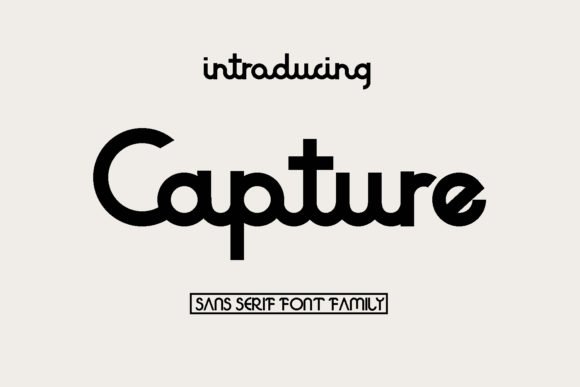
Enter Capture Font, a delightful monoline sans serif font designed to turn your creative ideas into stunning pieces of art. With its playful and cute aesthetic, Capture Font is the perfect companion for designers looking to add a touch of personality to their work. Whether you’re working on a branding project, creating a social media campaign, or designing a website, Capture Font is the ideal choice to deliver your message with confidence and style.
Capture Font Key Features
Designer Review: Capture Font
As a designer, I was excited to try out the Capture Font. Here’s my honest review.
- Capture Font has a unique and modern aesthetic, making it perfect for creative projects.
- The font is highly legible, even at small font sizes, which is a must for any design.
- The font’s versatility allows it to be used for both digital and print projects.
- Capture Font has limited language support, which may be a concern for international projects.
- The font’s bold and italic weights are not as refined as its regular weight.
- The font may not be suitable for projects requiring a more classic or traditional look.
Overall, Capture Font is a solid choice for designers looking for a modern and versatile font. While it has some limitations, its unique aesthetic and legibility make it a great addition to any design project.
Capture Font is a versatile tool that can be used in a variety of situations. Some common use cases include:
- Creatng visually appealing social media graphics
- Adding text overlays to photos and videos
- Creating eye-catching headings and titles
- Designing engaging marketing materials